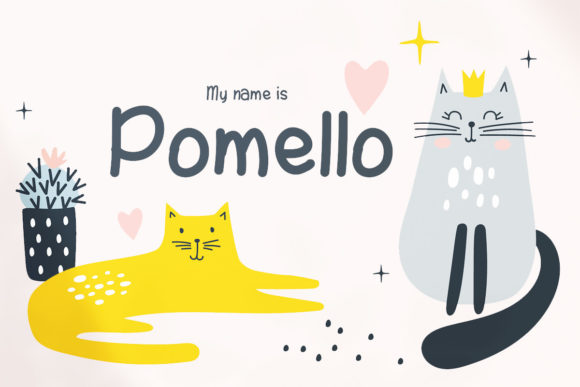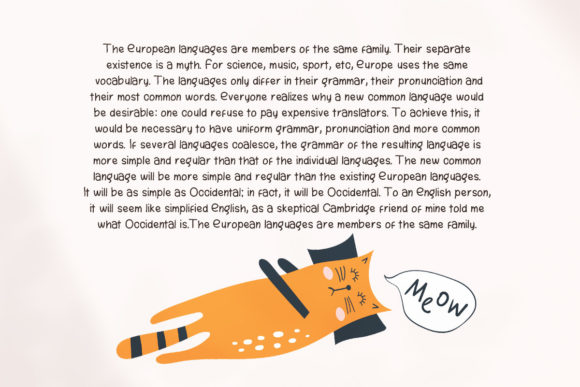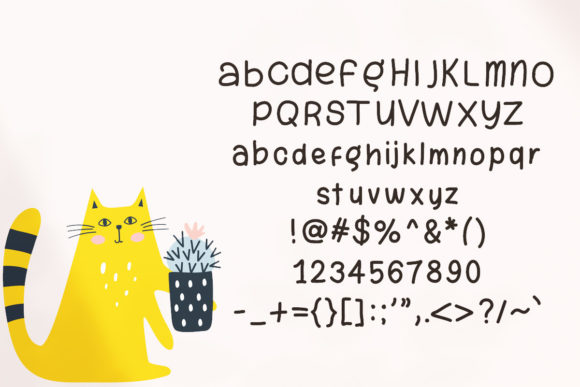
My Name is Pomello Font
About My Name is Pomello Font
My Name is Pomello is a cute and thin lettered script font, that can be used for all chalkboard quotes or teaching material! Its authentic look will add a personal and realistic feel to your designs.